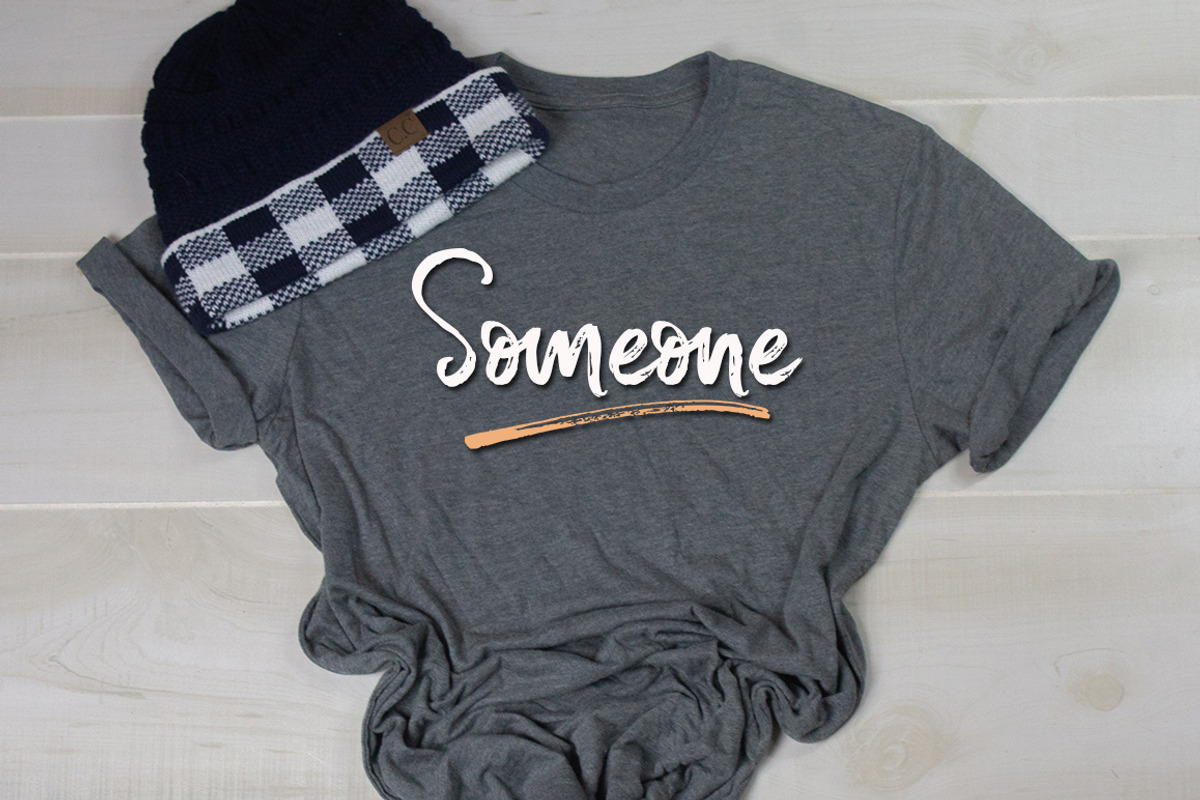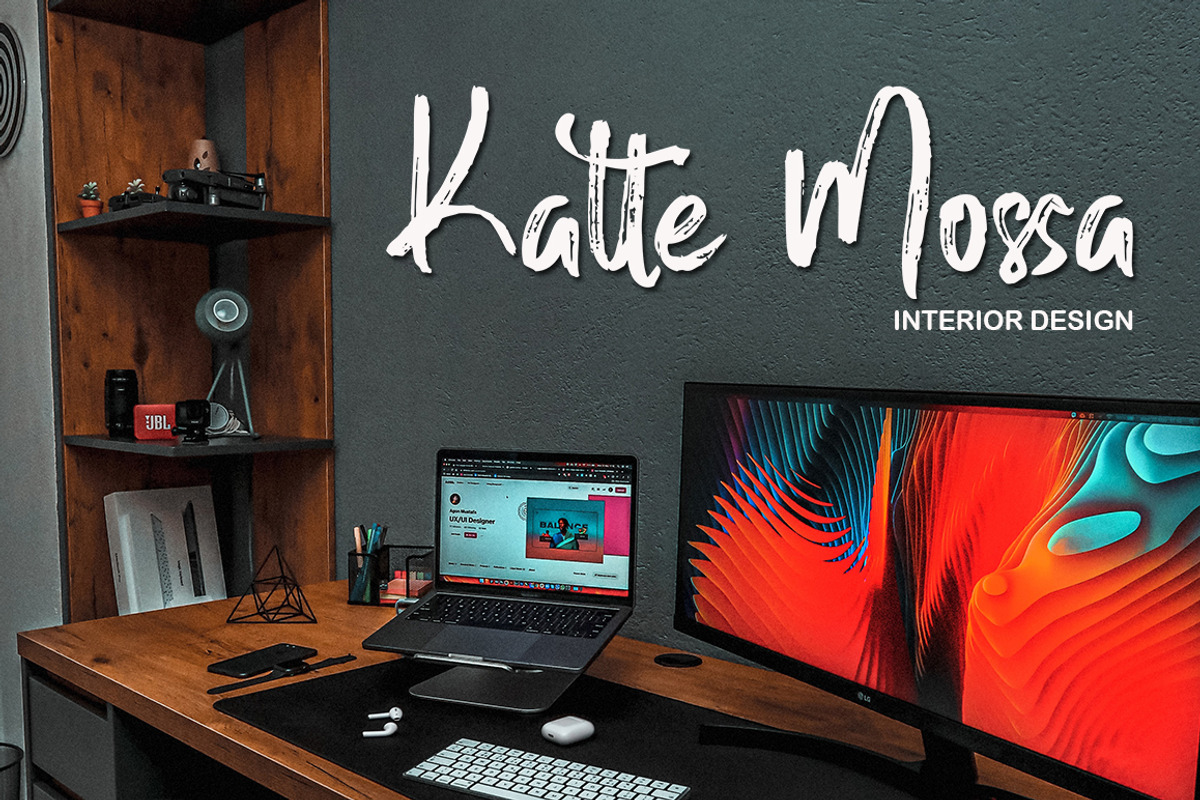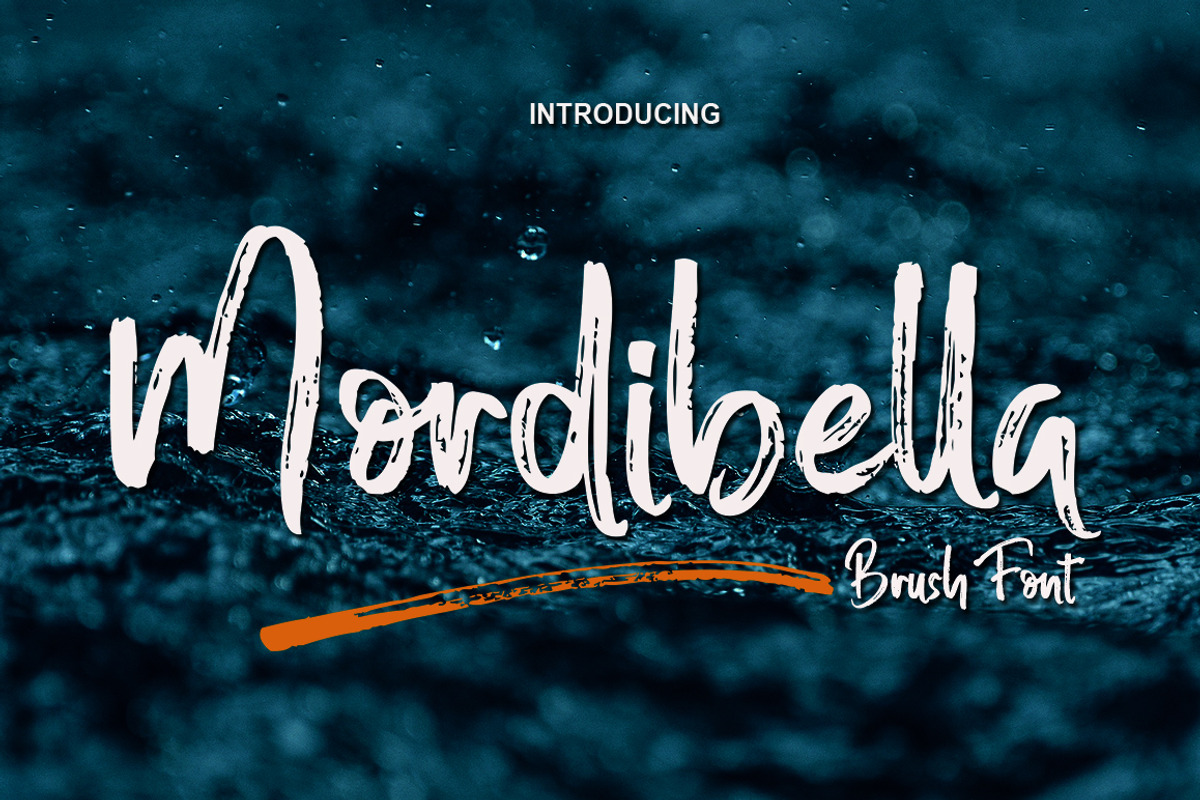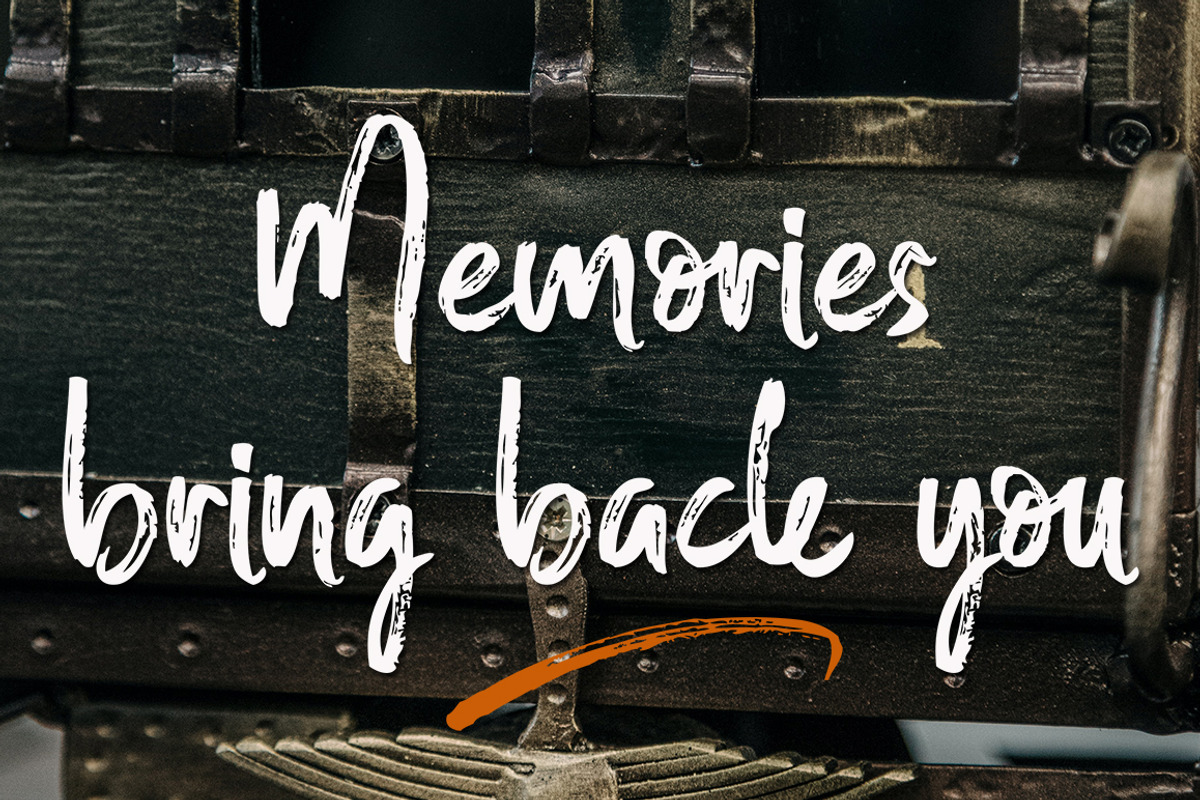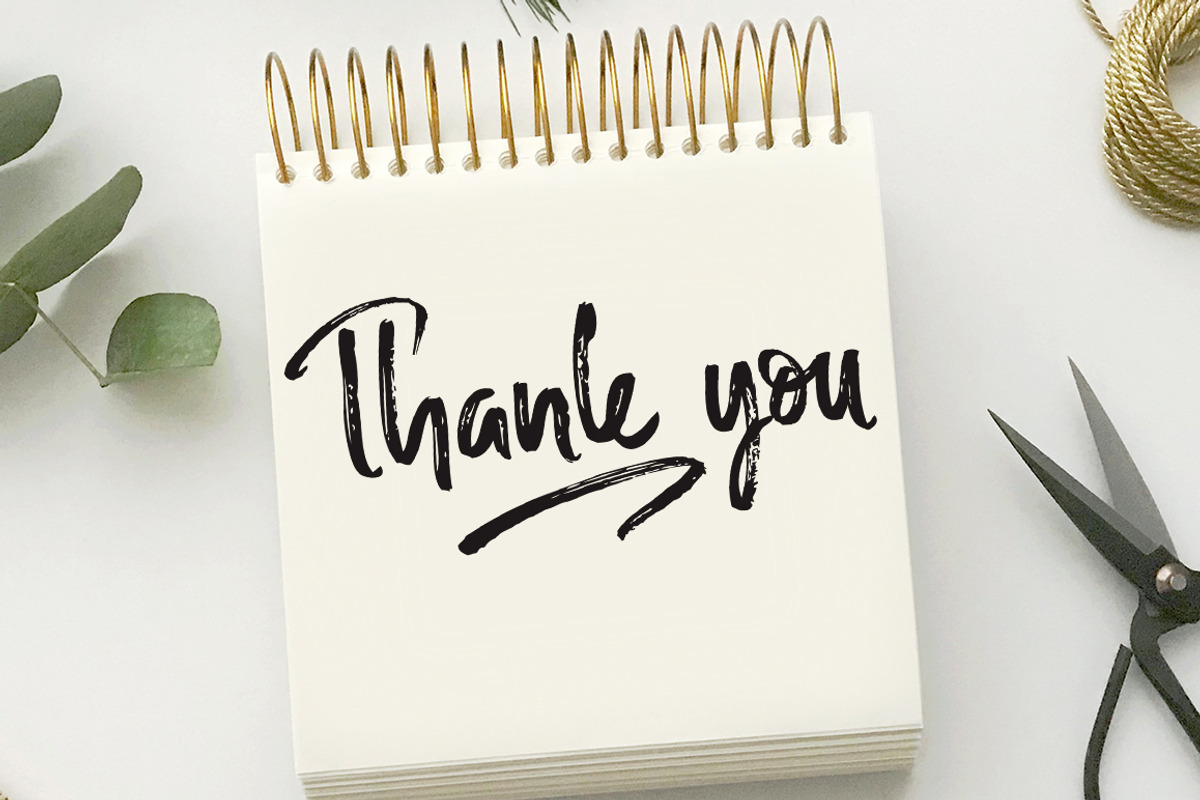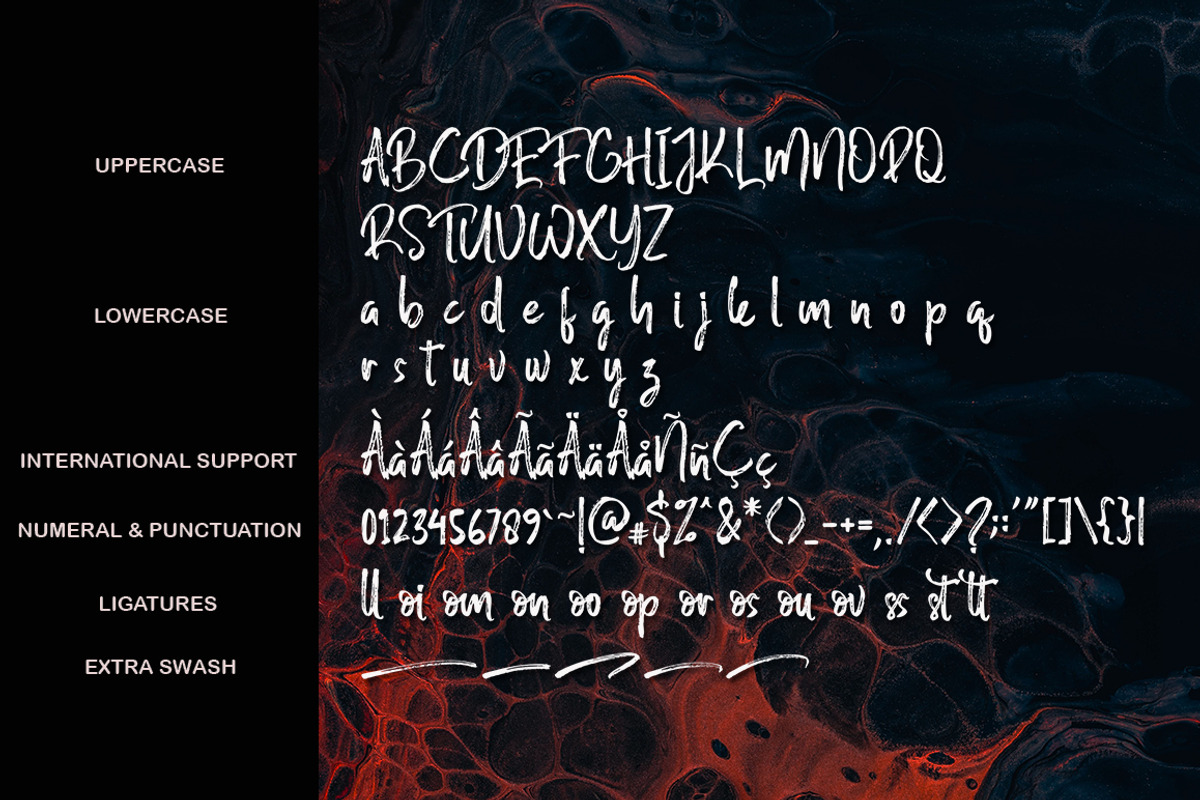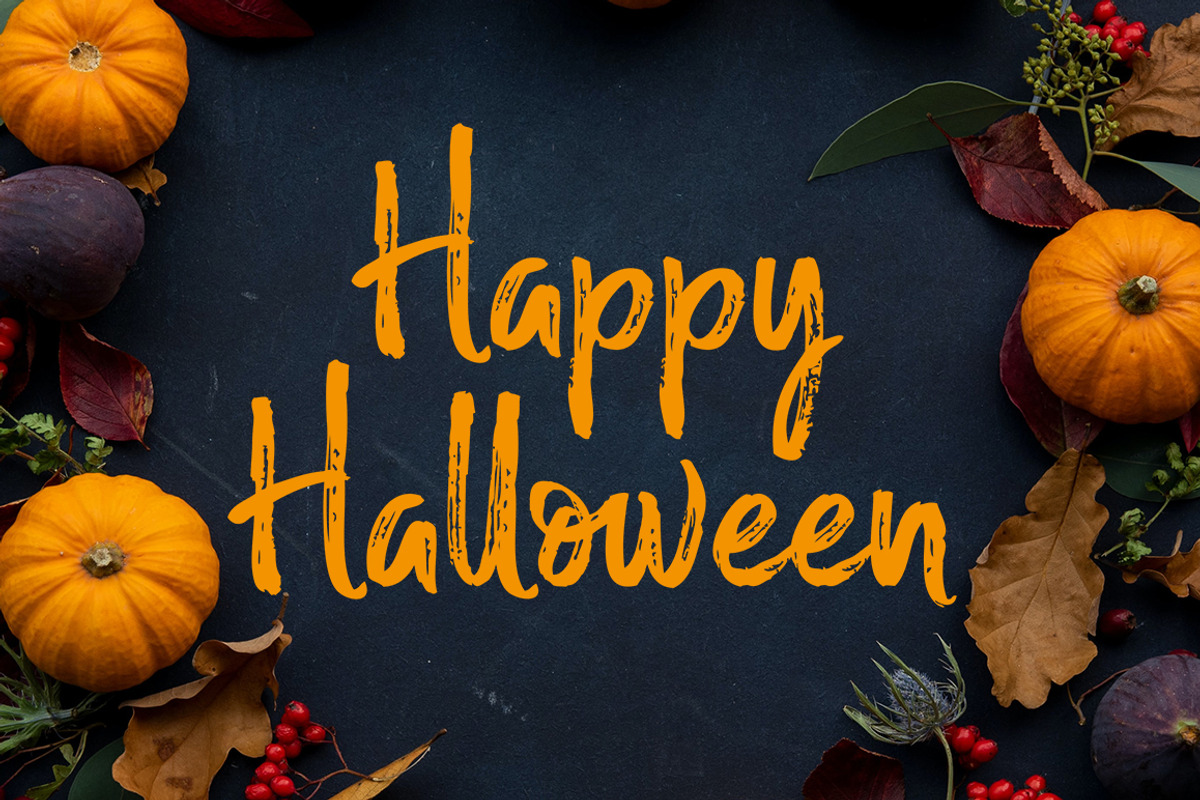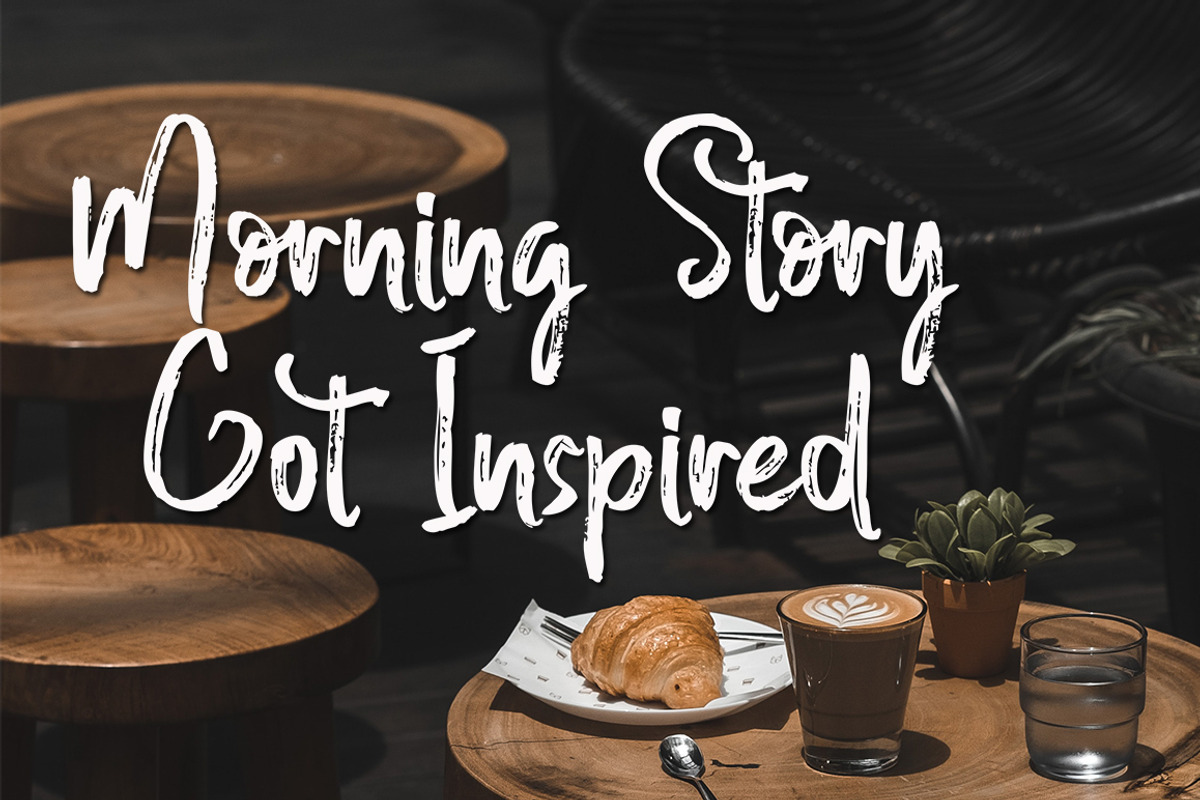
Mordibella - Brush Font
Mordibella is a new modern brush font with an irregular baseline, a contemporary approach to design, handmade natural and suitable for use in title design such as clothing, invitations, book titles, stationery designs, quotes, branding, logos, T-shirts, packaging designs, posters, and more.Complete with uppercase and lowercase letters, as well as multi-lingual support, numbers, punctuation, Mordibella also provides some ligatures and swash.